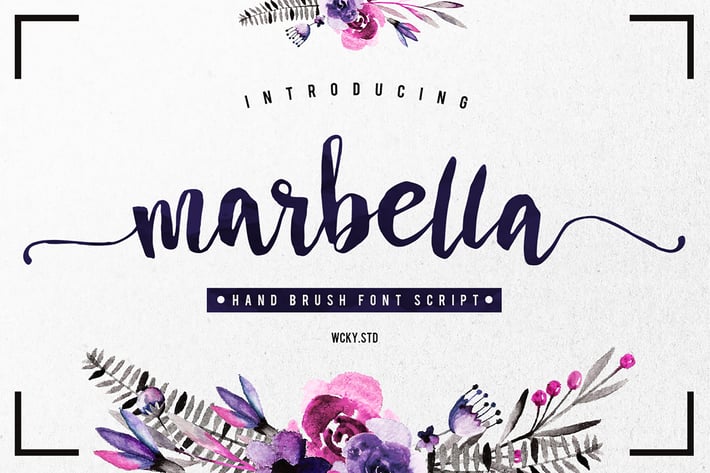
Marbella Typeface
INTRODUCING MARBELLA TYPEFACE Hand Brush Font Script!
New font from us Marbella Typeface for your good design invitation card, and graphic. Easy to use for user, and can make it easier to convey the message in your design. available for mac or windows.
Numbers & Punctuations
Ligatures
Stylistic Alternates
* Swash